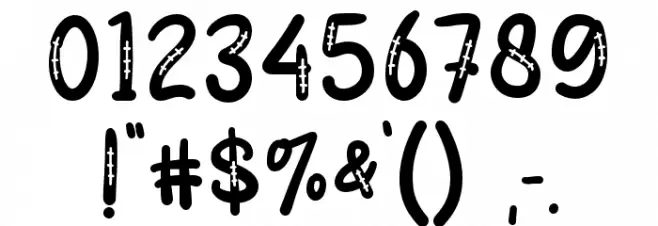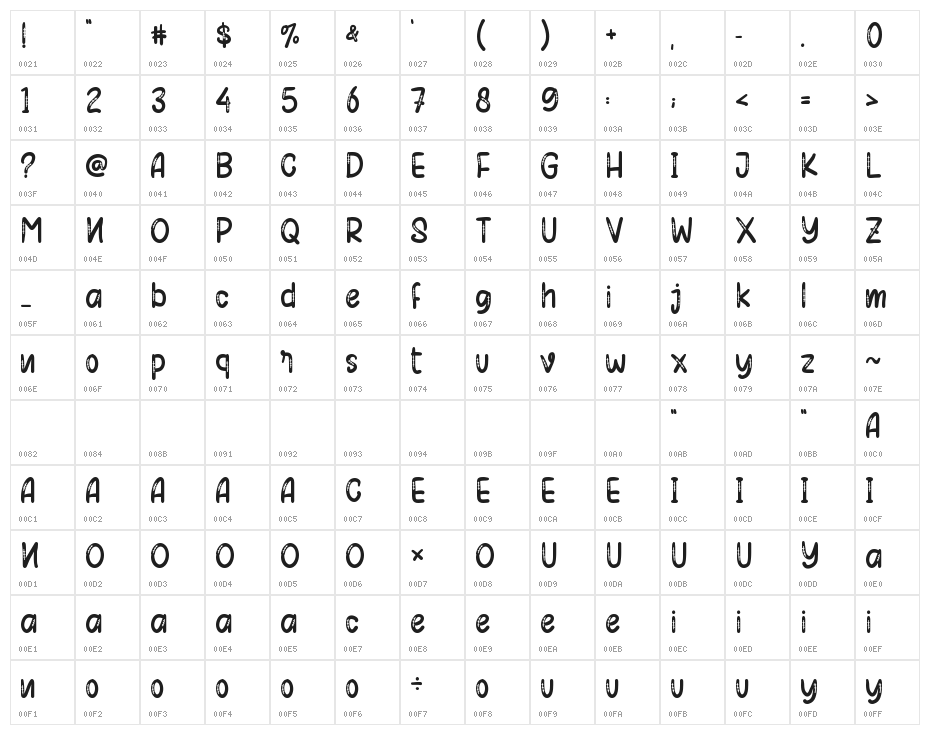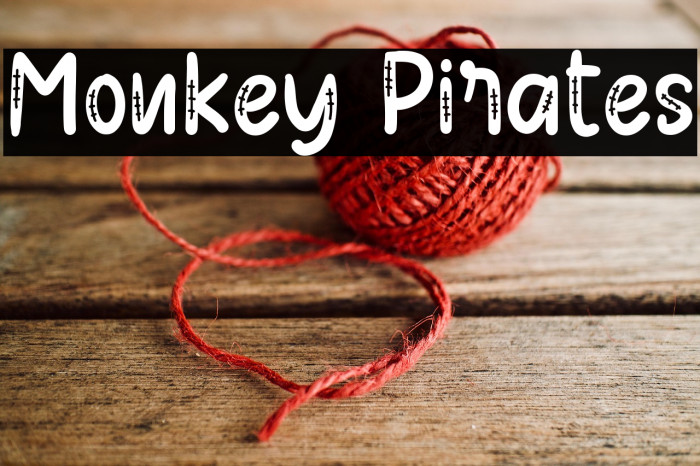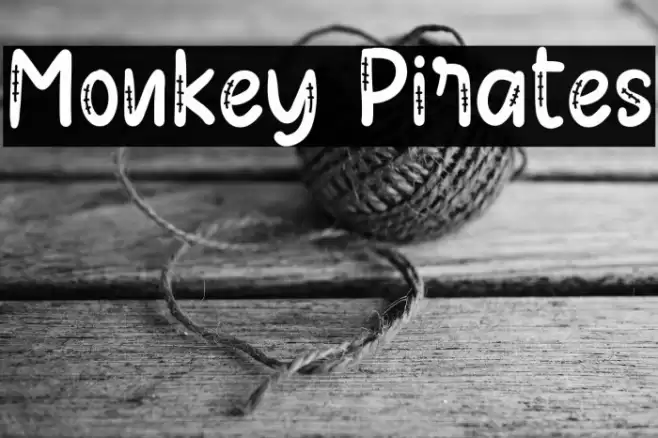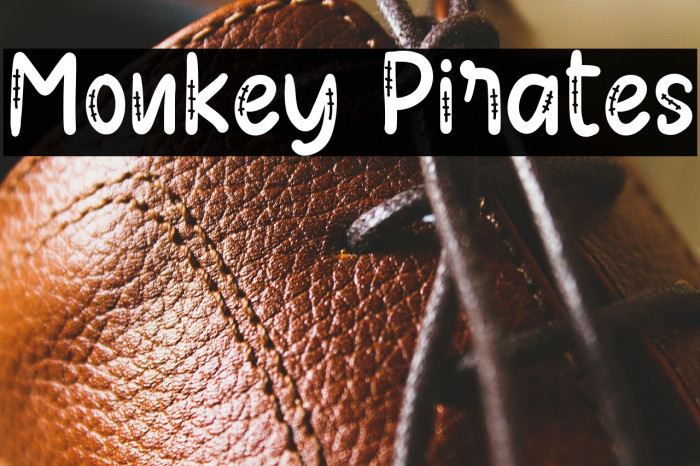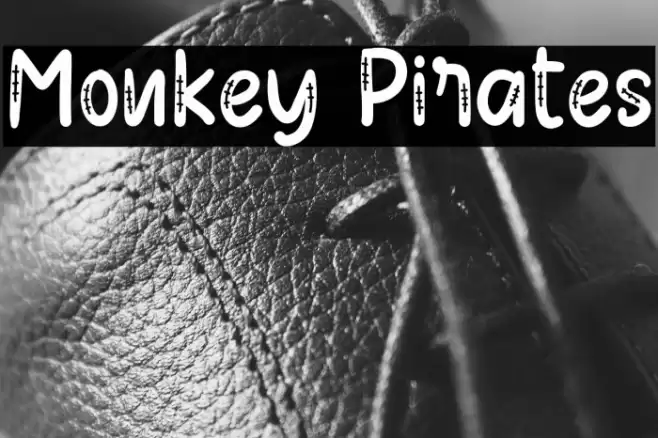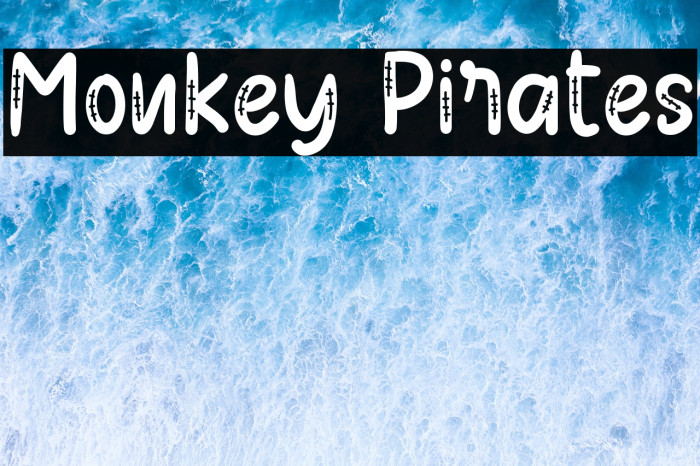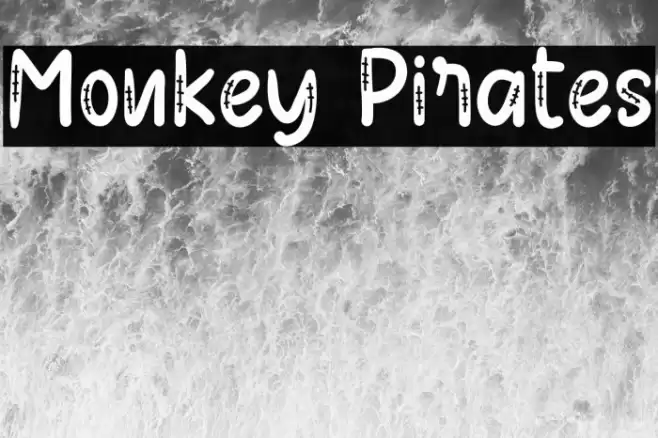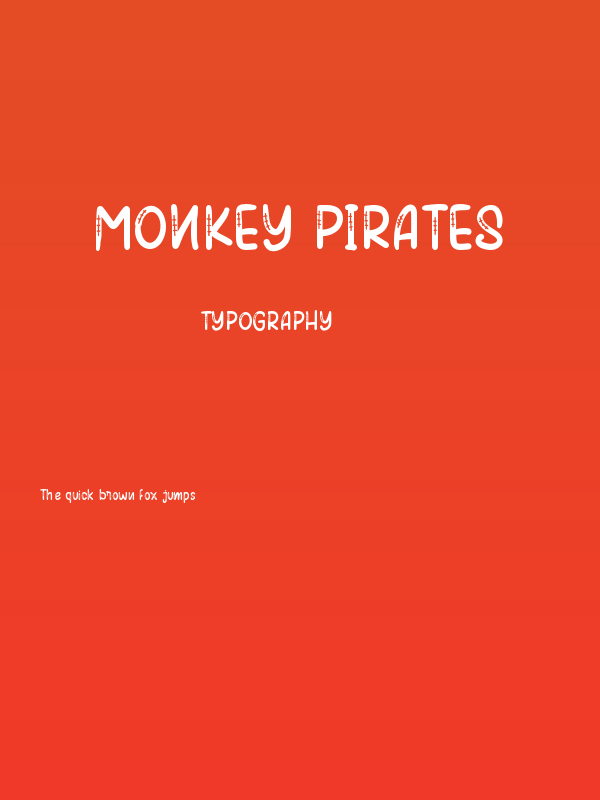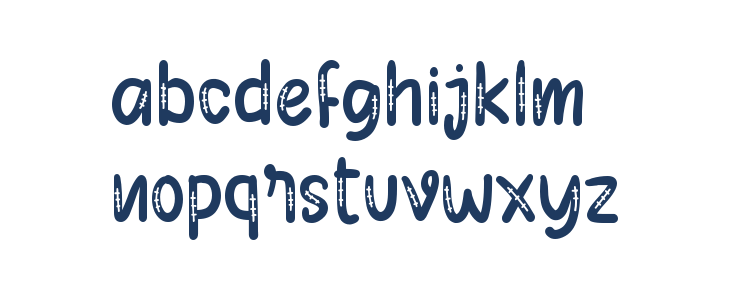
Monkey Pirates Font
Monkey Pirates Description
This playful and whimsical font features a bold, hand-drawn style with a pirate-themed twist. Each character is adorned with subtle cross-stitch patterns, reminiscent of pirate flags and treasure maps. The letters are rounded and slightly irregular, giving them a friendly and approachable feel. The numbers and special characters maintain the same decorative style, ensuring consistency throughout. This font is perfect for projects that require a fun and adventurous aesthetic, capturing the spirit of pirate tales and playful mischief.
| Proposed Projects | Ideal for children's books, themed party invitations, playful branding, and adventure-themed posters. |